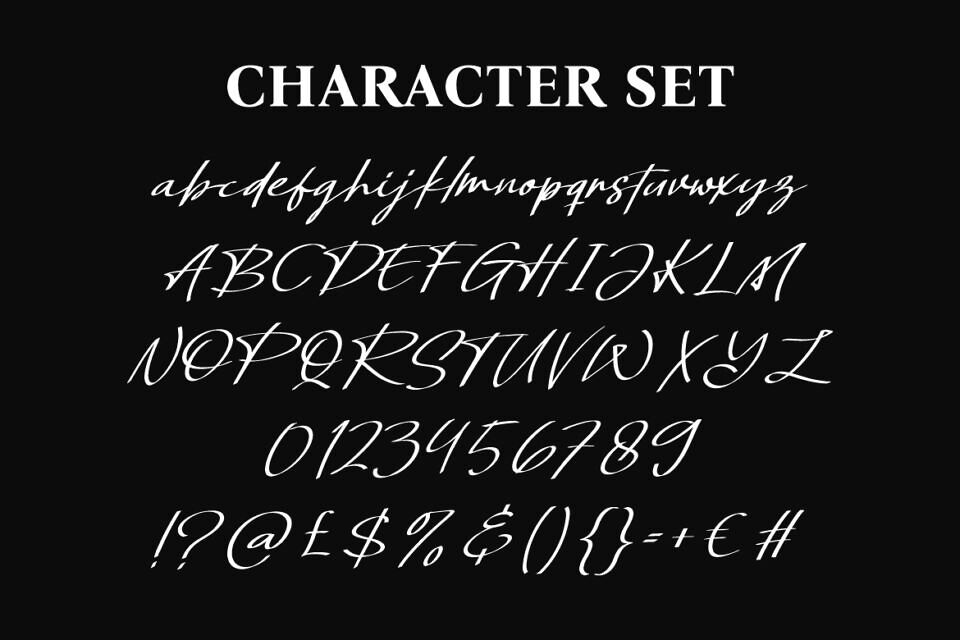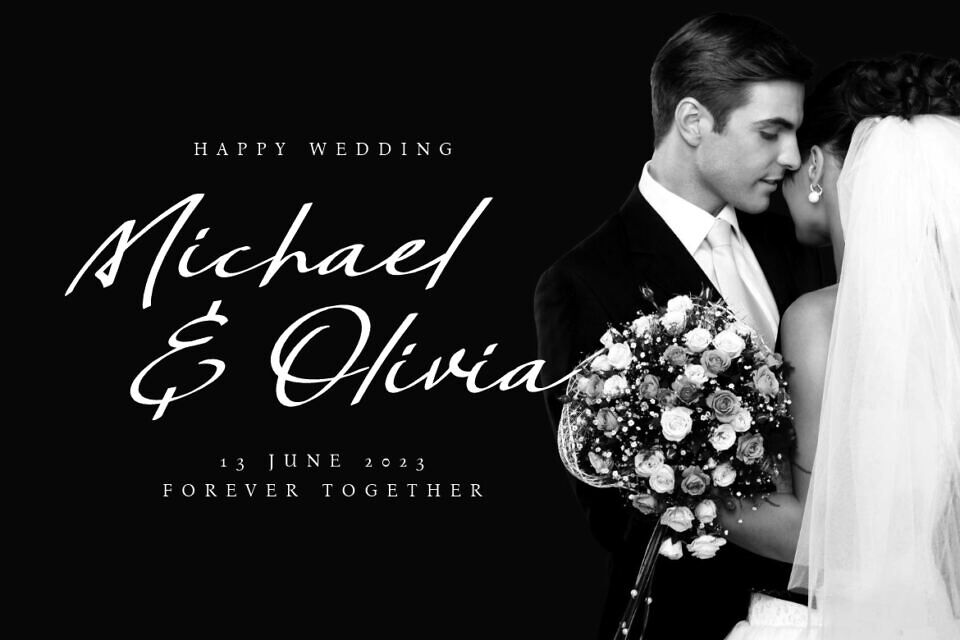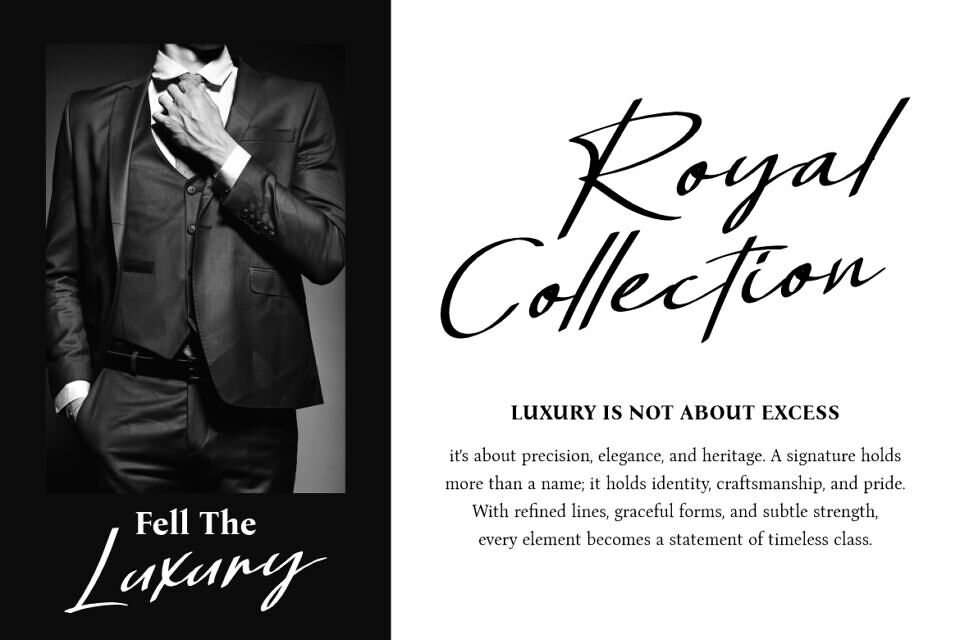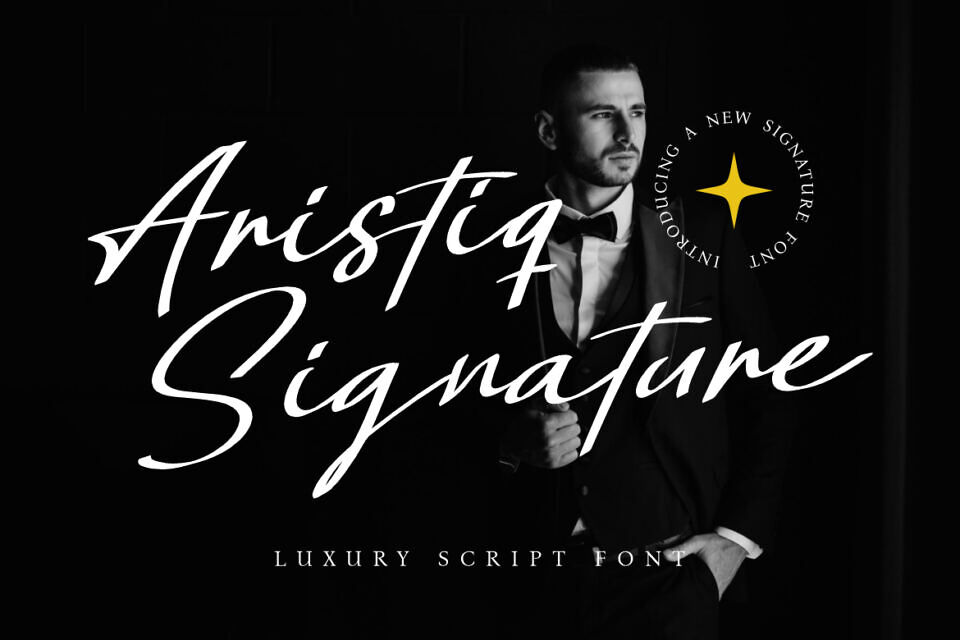
Aristiq Signature Font
Aristiq Signature Luxury Script Font embodies the perfect balance between refinement and authenticity. Each letter flows with natural handwritten curves, creating an elegant yet modern look. The thin upstrokes and bold downstrokes showcase a calligraphic touch that feels both personal and professional.
Its flowing design mimics a genuine signature, making it ideal for projects that demand a sophisticated and exclusive appearance. From sleek wedding invitations to luxury product packaging, this font elevates every layout with its charm.